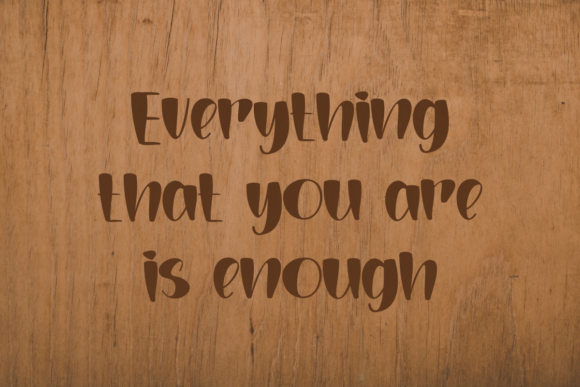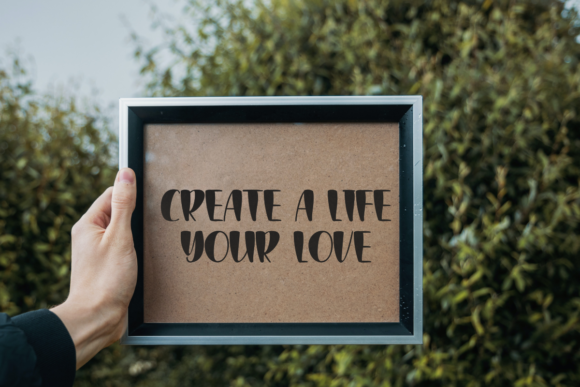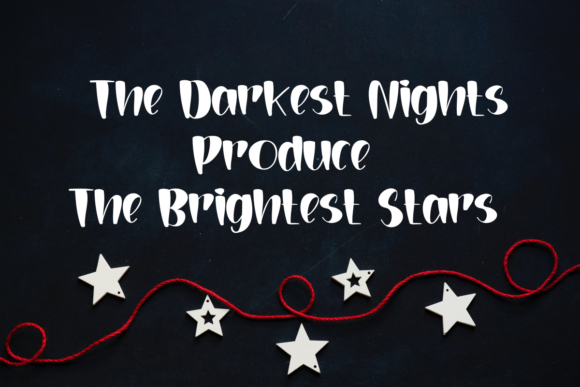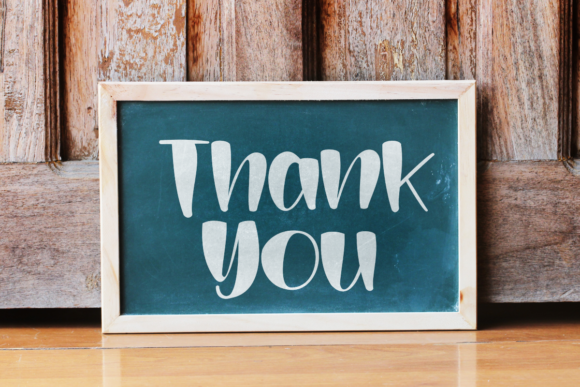
Introducing Bright Style Font: The Perfect Addition to Your Design Arsenal
Are you a designer or crafter looking for a font that can add a touch of whimsy and charm to your creations? Look no further than Bright Style Font, a beautiful and versatile handwritten font that’s perfect for a wide range of design projects. In this article, we’ll take a closer look at Bright Style Font, its features, and how you can use it to elevate your designs.
What is Bright Style Font?
Bright Style Font is a chic and whimsical handwritten font that’s designed to bring a touch of playfulness and elegance to your designs. With its flowing lines and delicate curves, this font is perfect for creating eye-catching headings, titles, and text that will capture the attention of your audience.
Key Features of Bright Style Font
- Whimsical and Handwritten: Bright Style Font has a unique, handwritten feel that’s perfect for designs that require a personal touch.
- Versatile: This font is suitable for a wide range of design projects, from cartoon-related designs to children’s games and more.
- Elegant and Playful: Bright Style Font strikes the perfect balance between elegance and playfulness, making it perfect for designs that require a touch of sophistication and fun.
- Easy to Read: Despite its whimsical nature, Bright Style Font is easy to read, making it perfect for use in body text and other applications where legibility is important.
Use Cases for Bright Style Font
Bright Style Font is a versatile font that can be used in a wide range of design projects, including:
- Cartoon-related designs: Bright Style Font is perfect for creating cartoon characters, titles, and text that will bring your designs to life.
- Children’s games: This font is ideal for creating fun and engaging text for children’s games, puzzles, and other activities.
- Branding and packaging: Bright Style Font can be used to create eye-catching logos, labels, and packaging that will help your brand stand out.
- Social media graphics: This font is perfect for creating social media graphics, such as Facebook posts, Instagram stories, and more.
Tips for Using Bright Style Font
Here are a few tips for getting the most out of Bright Style Font:
- Use it sparingly: Bright Style Font is a bold and eye-catching font, so use it sparingly to avoid overwhelming your design.
- Pair it with other fonts: Bright Style Font pairs well with other fonts, such as sans-serif fonts, to create a visually appealing contrast.
- Experiment with colors: Bright Style Font looks great in a wide range of colors, so don’t be afraid to experiment and find the perfect color for your design.
Bright Style Font is a beautiful and versatile handwritten font that’s perfect for designers and crafters looking to add a touch of whimsy and charm to their creations. With its flowing lines, delicate curves, and elegant feel, this font is sure to become a staple in your design arsenal. Whether you’re creating cartoon-related designs, children’s games, or just any creation that requires a lovely touch, Bright Style Font is an amazing choice.